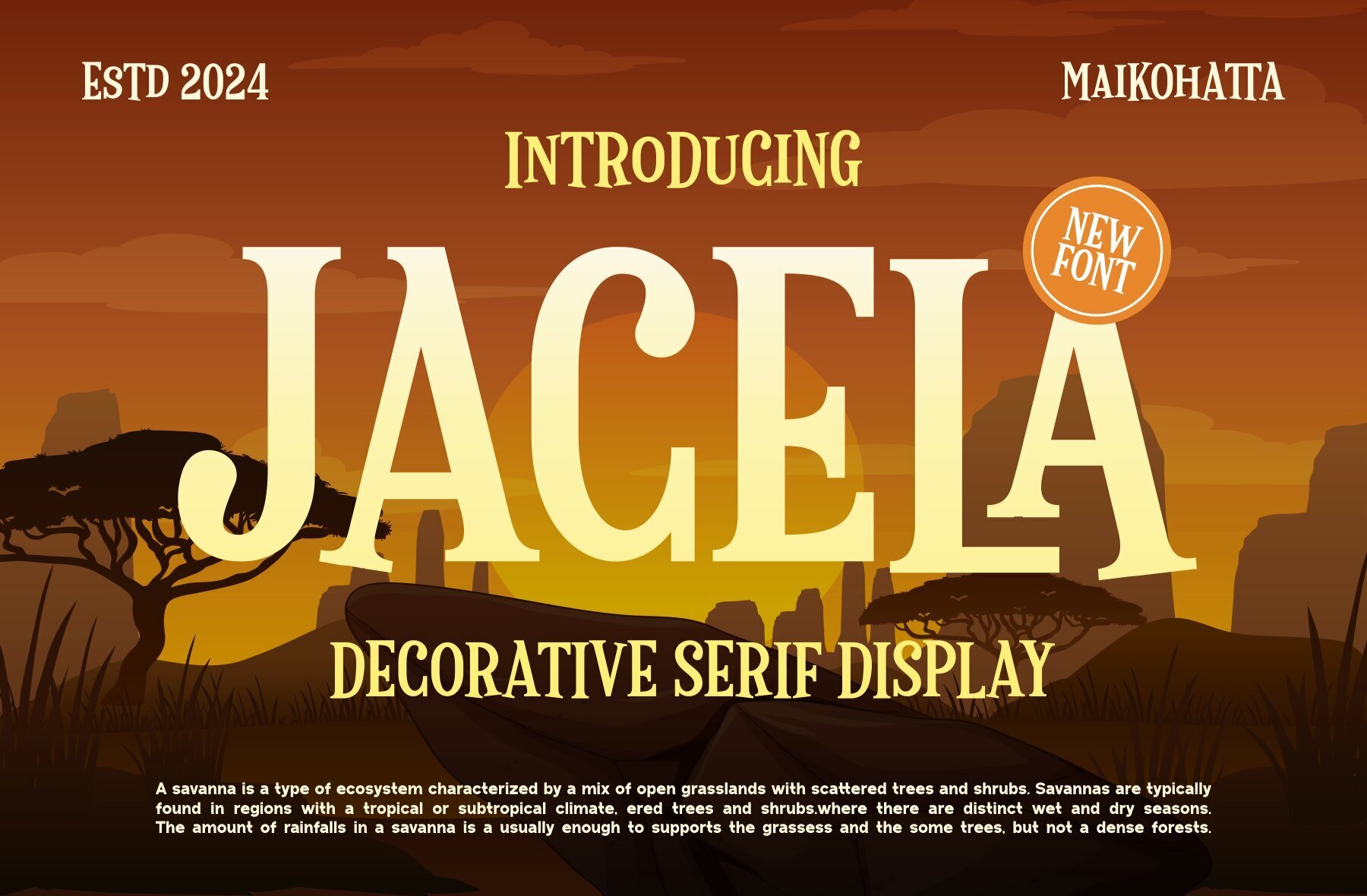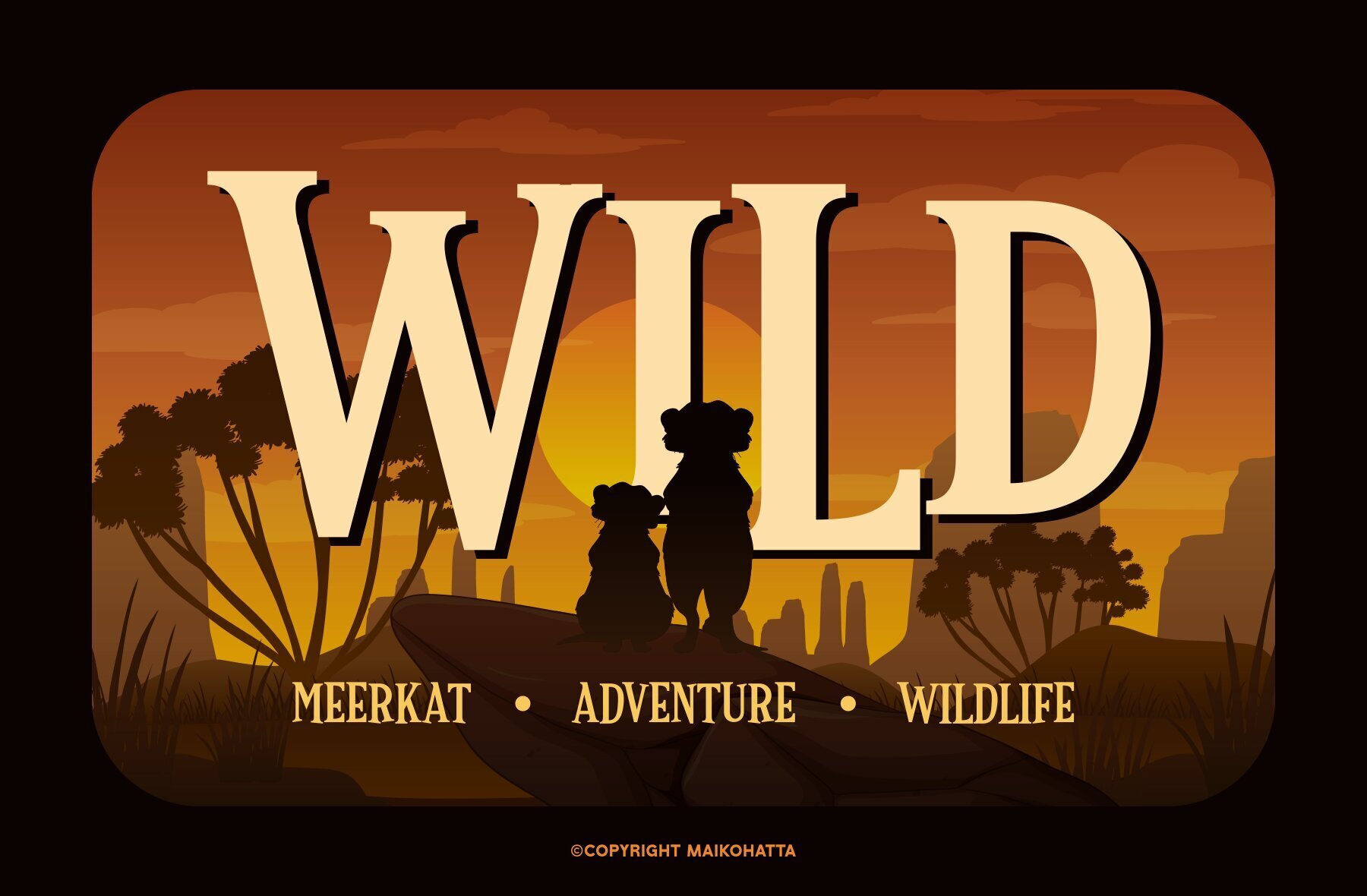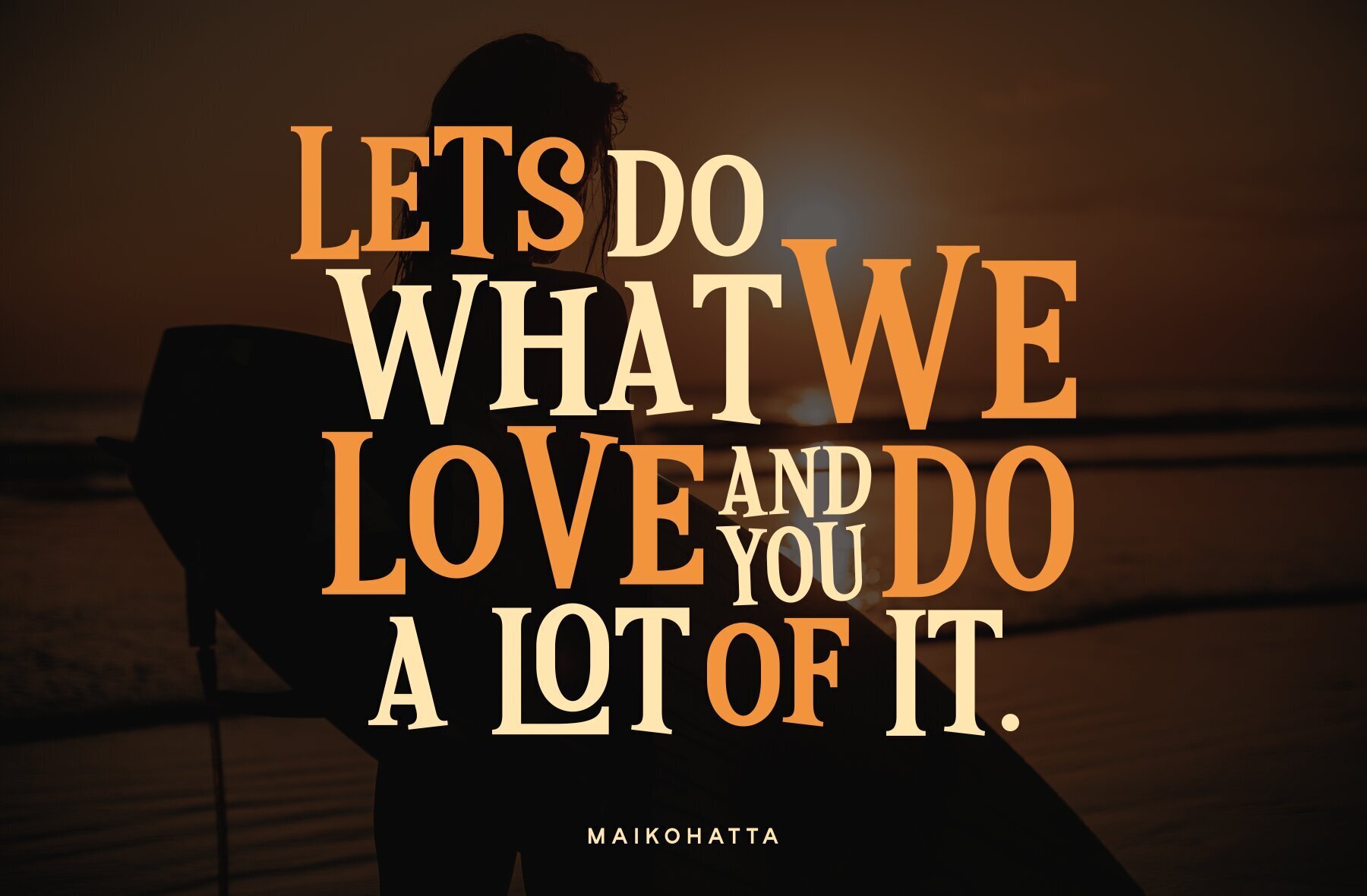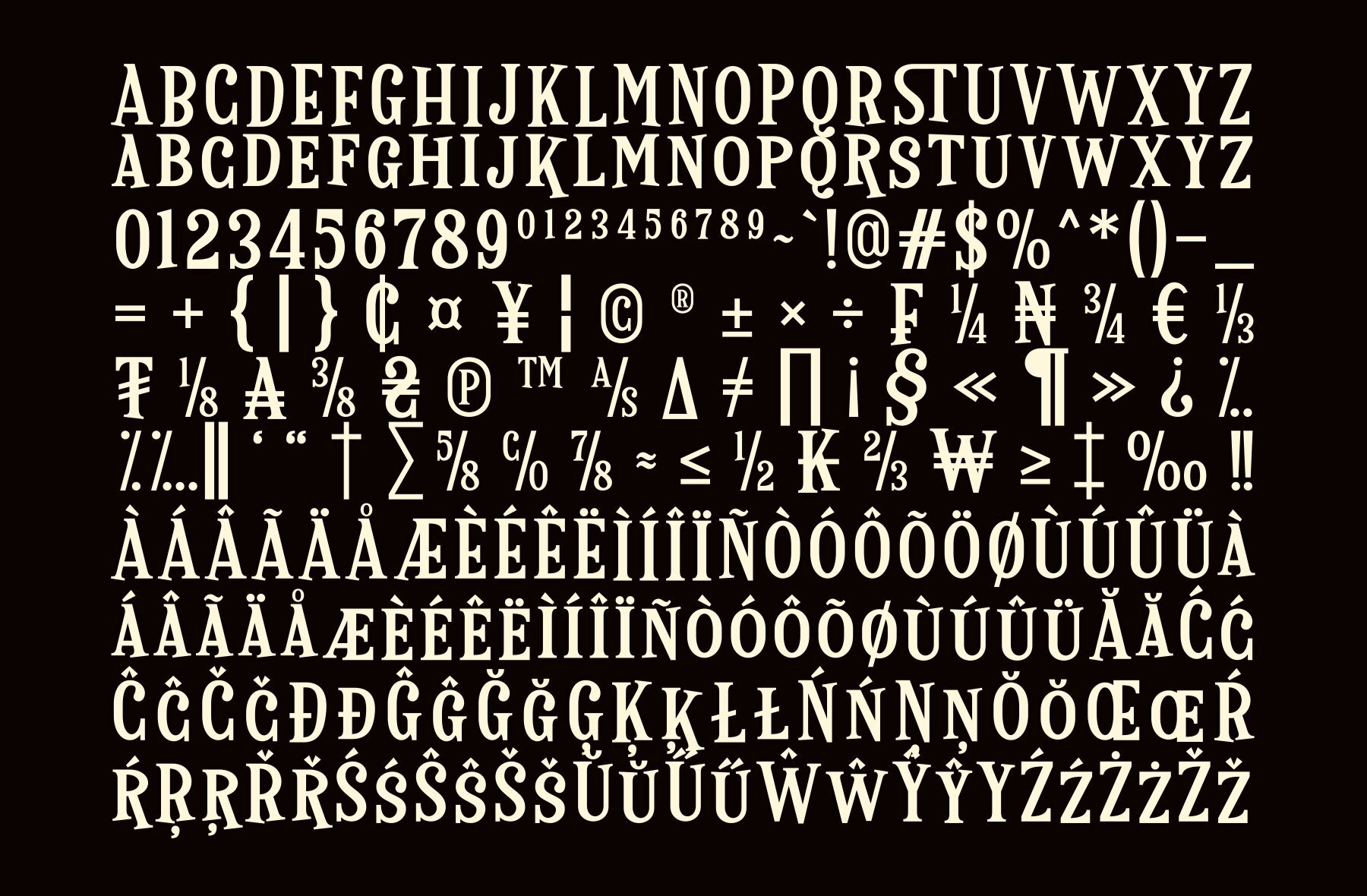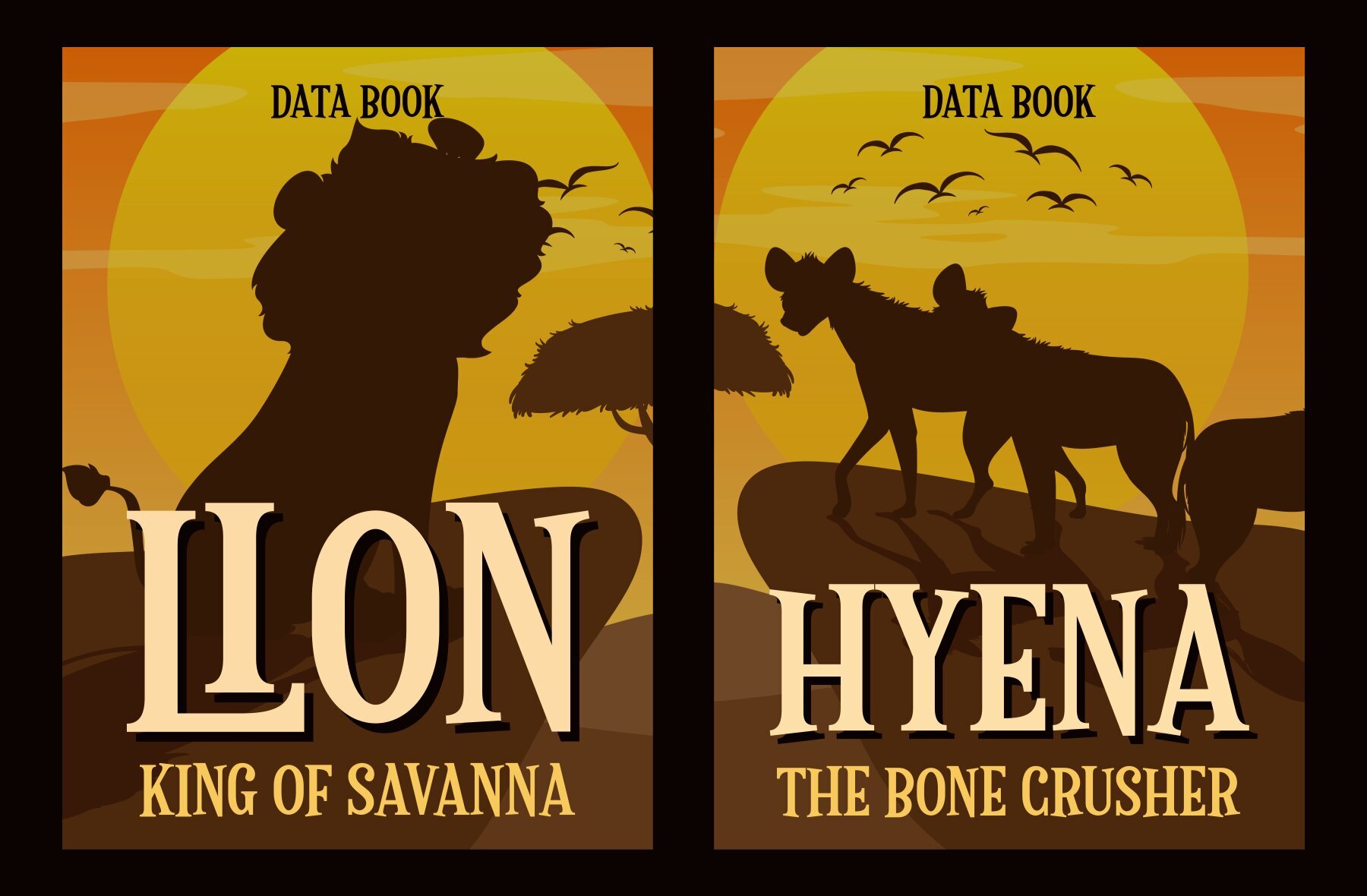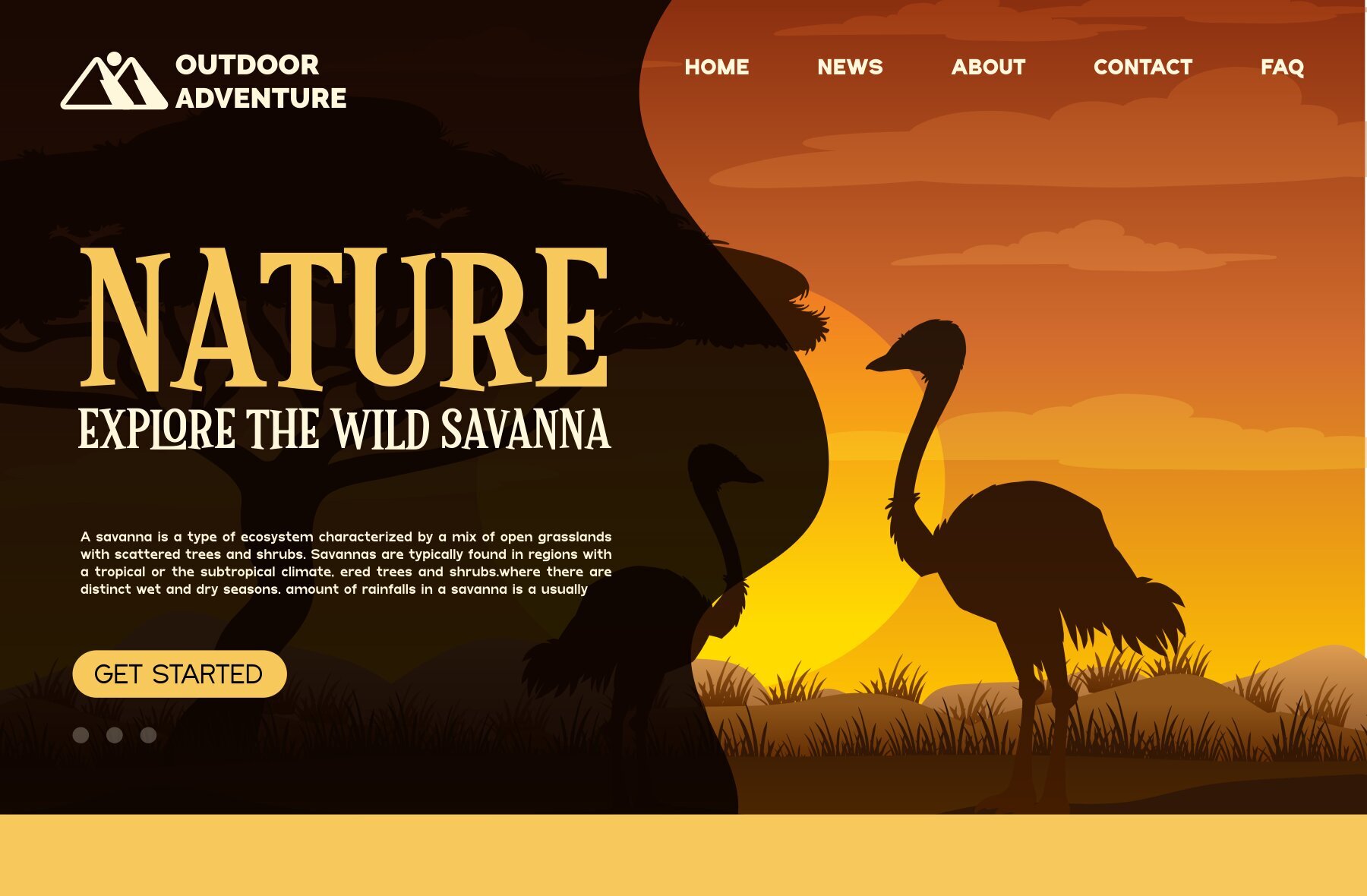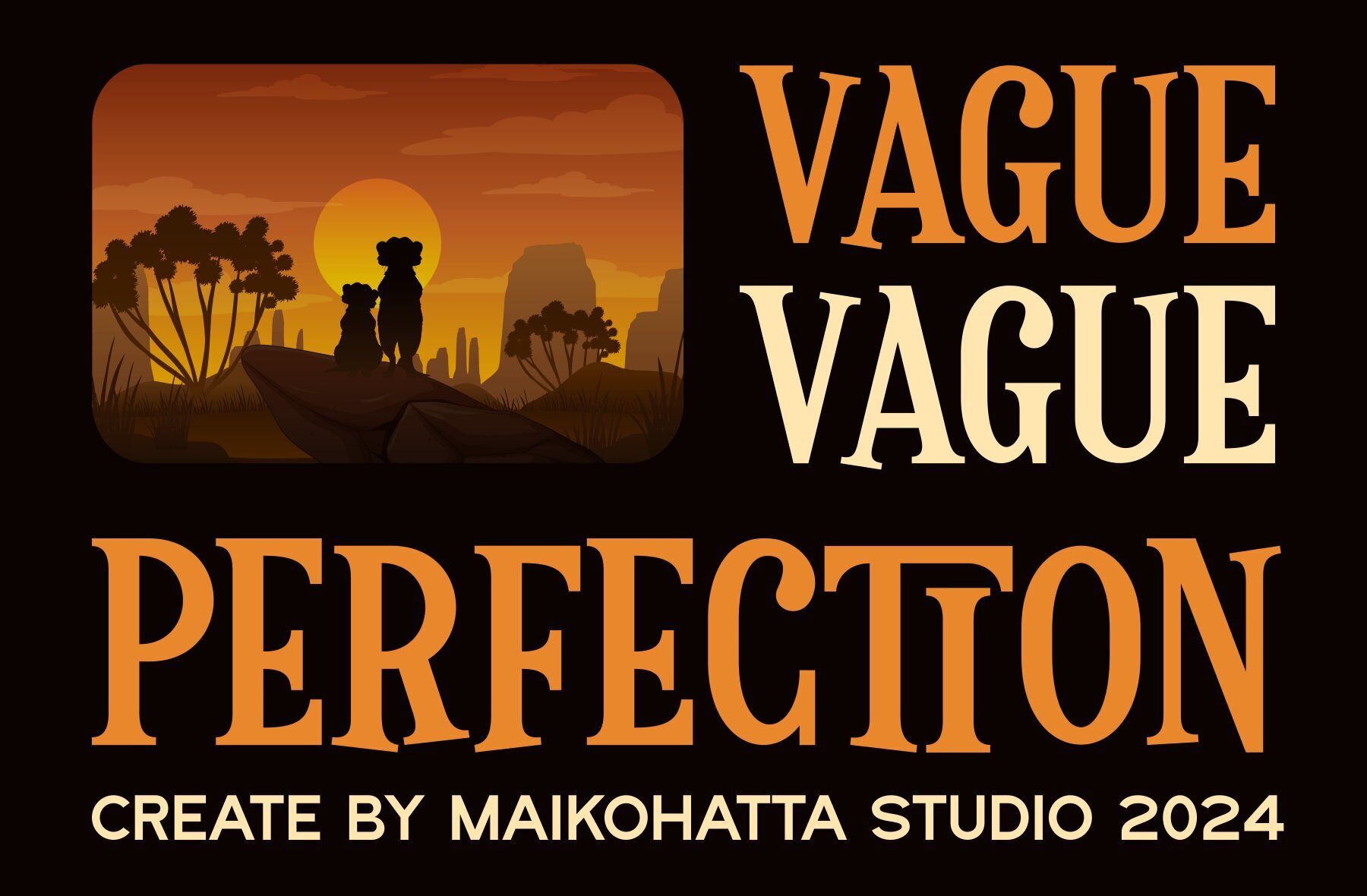
Jacela Font
Jacela
Jacela is a decorative serif display font that brings energetic and abstract characteristics to your design projects. With its contemporary design perspective, it offers a captivating visual experience, making it ideal for those looking to inject a sense of adventure into their work. This font's unique features make it a versatile tool for creative experimentation, providing designers with the opportunity to explore new creative realms.
Inspired by the psychedelic style, Jacela combines artistic elements and vibrant colors to create eye-catching designs. Perfect for graphic design projects, this typeface excels in making posters, art pieces, and promotional materials stand out. Its striking and experimental appearance ensures a unique visual impact, capturing the attention of any audience. Whether you're working on a daring design or looking to express creativity in unconventional ways, Jacela provides the tools to do so effectively.